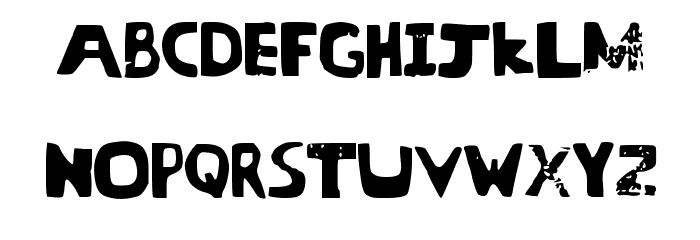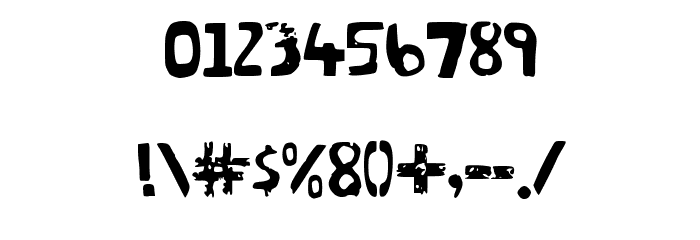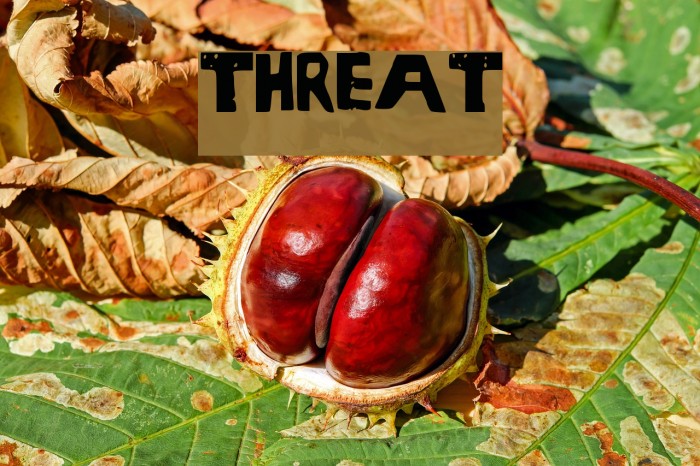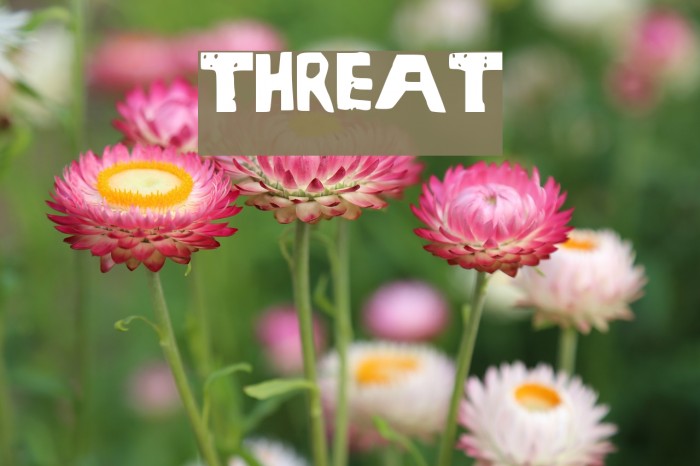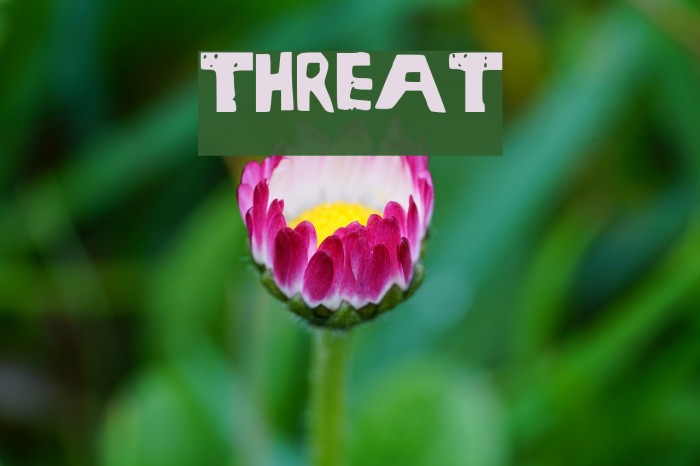
Threat Font
This font features a distressed and grungy style, with uneven edges and a rough texture that gives it a worn, weathered appearance. The characters are bold and impactful, with a unique, artistic flair that suggests a sense of urgency or intensity. The uppercase and lowercase letters maintain a consistent style, while the numbers and special characters follow the same rugged aesthetic. This font is ideal for projects that require a dramatic and edgy look, such as posters, album covers, or themed event invitations.
A bold, distressed font with a grungy, weathered appearance.
- Proposed Projects: Ideal for posters, album covers, themed event invitations, and edgy branding.
- Overall Style: Grunge, Edgy